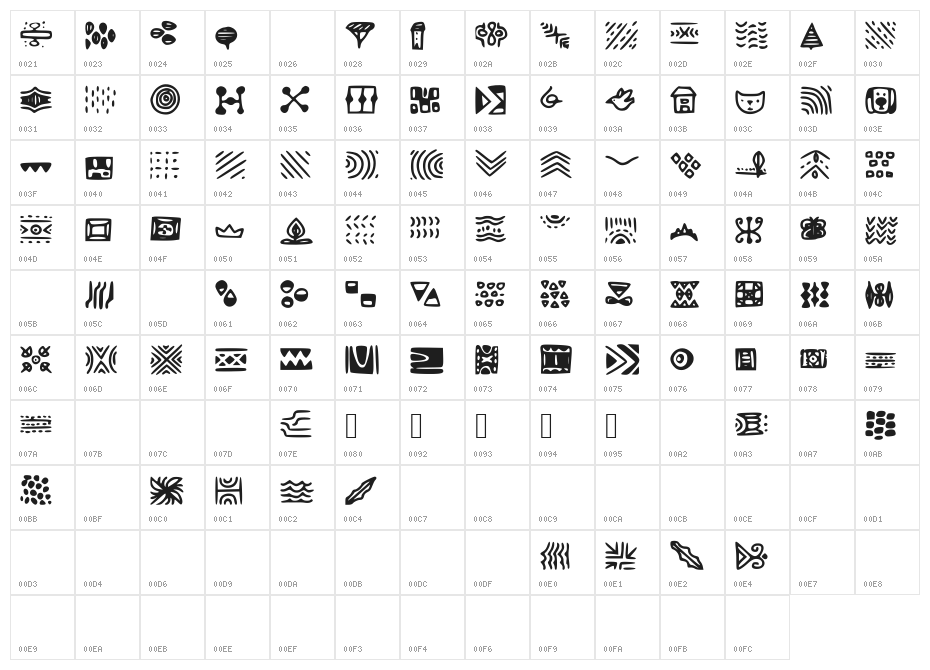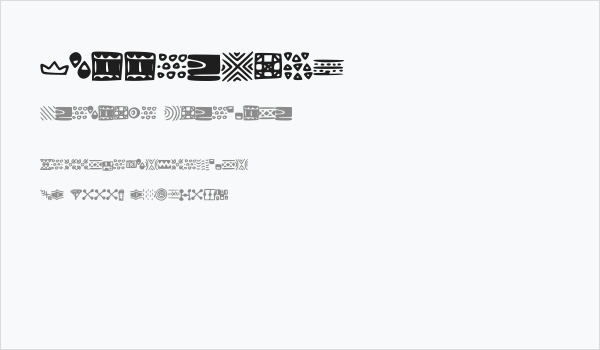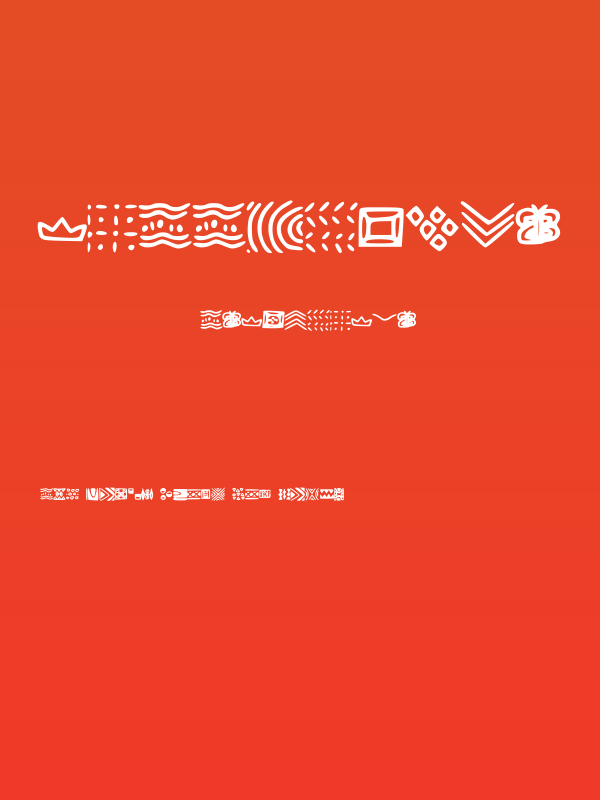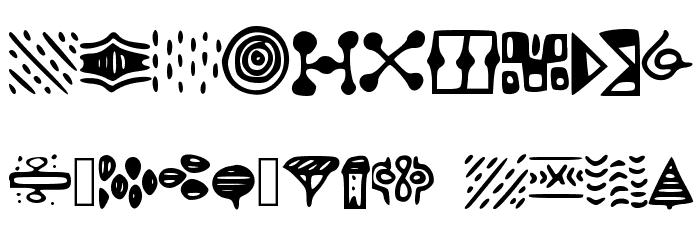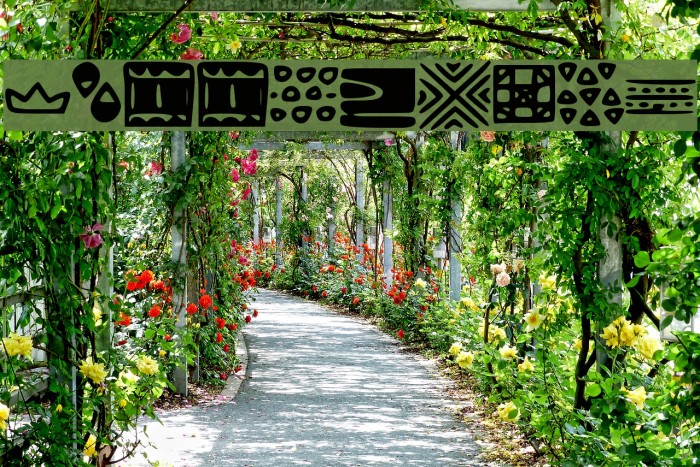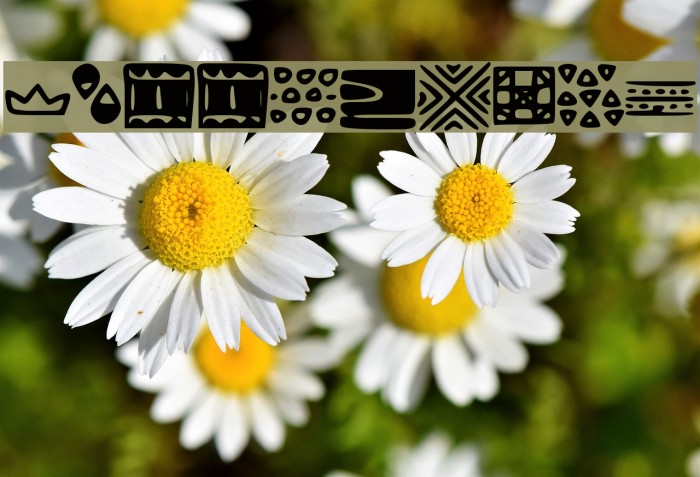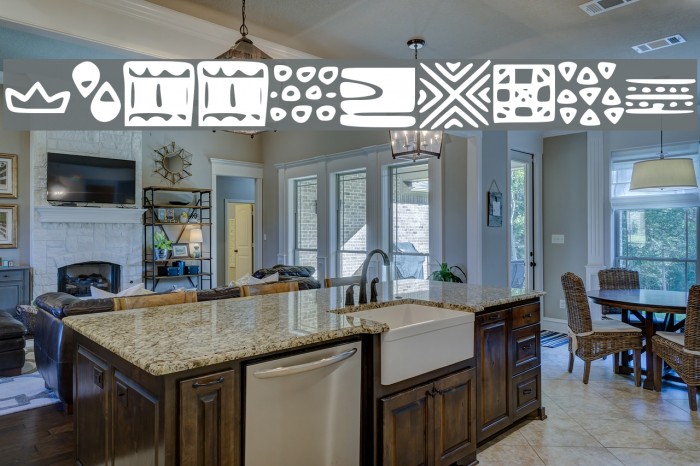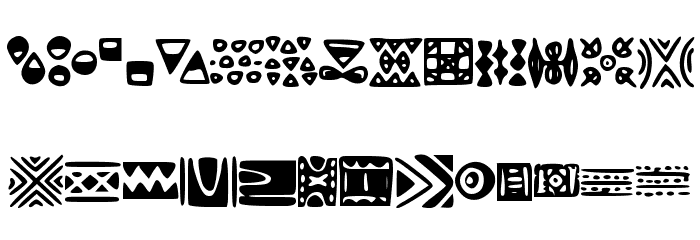
Patternify Font
Patternify Description
A highly decorative and abstract font composed of geometric shapes, lines, dots, and patterns, with each character resembling a unique symbol or pictogram rather than traditional letterforms. The style is bold, playful, and visually striking, with significant variation in character design and negative space.
| Overall Style | Decorative, Abstract, Modern |
| Use Case | Logos, Headlines, Posters, Artistic projects |
| Proposed Projects | Branding for creative industries, packaging, posters, album covers, textile design, digital art, and event graphics. |